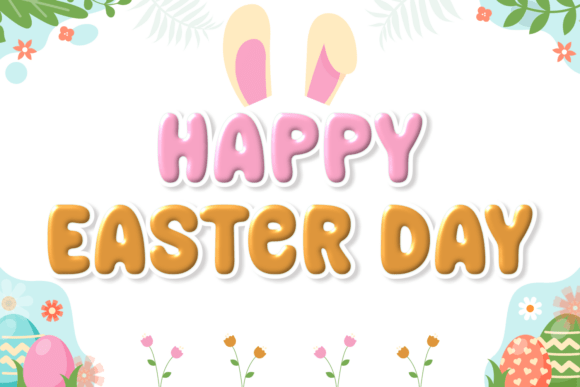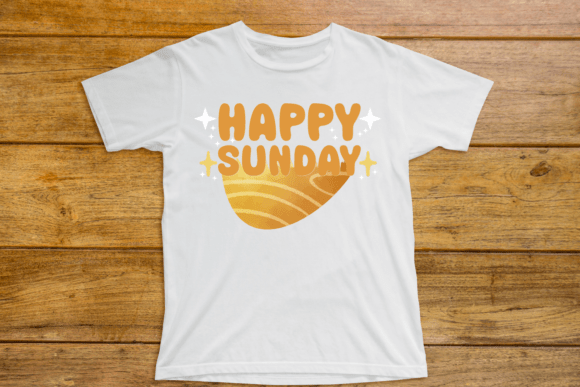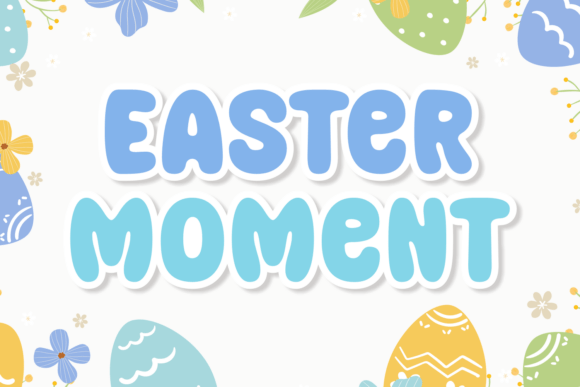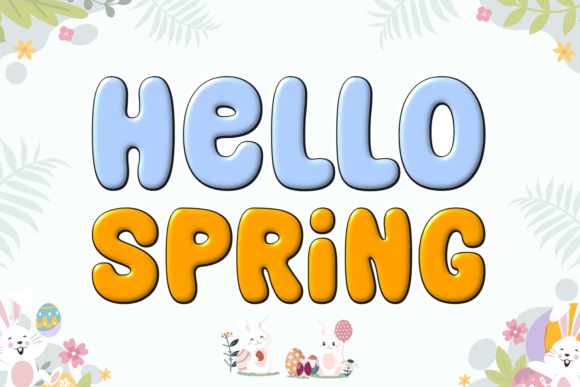
Easter Angel Font: A Whimsical and Versatile Display Font for Your Creative Projects
Are you looking for a font that can add a touch of whimsy and warmth to your creative projects? Look no further than the Easter Angel font! This charming display font is perfect for igniting the spirit of Easter with its bunny-inspired uniqueness and diverse layouts. With its smooth structures and clean aesthetic, the Easter Angel font is a fabulous choice for a wide range of design projects.
What Makes Easter Angel Font So Special?
The Easter Angel font is a standout in the world of typography, thanks to its unique blend of whimsy and sophistication. Its smooth structures and clean lines make it perfect for designs that require a touch of elegance, while its bunny-inspired uniqueness adds a playful touch that’s perfect for Easter-themed projects. Whether you’re designing for Easter or just looking for a font that can add a touch of warmth and personality to your work, the Easter Angel font is an excellent choice.
One of the things that makes the Easter Angel font so versatile is its wide range of applications. This font is perfect for:
- Branding and product packaging designs: The Easter Angel font’s clean and sophisticated aesthetic makes it a great choice for branding and product packaging designs. Its smooth lines and curves add a touch of elegance to any design, making it perfect for high-end products or luxury brands.
- Book covers and magazine typography: The Easter Angel font is also perfect for book covers and magazine typography. Its unique blend of whimsy and sophistication makes it a great choice for designs that require a touch of personality and flair.
- Invitations and greeting cards: The Easter Angel font’s playful and whimsical nature makes it perfect for invitations and greeting cards. Whether you’re designing for Easter or just looking for a font that can add a touch of warmth and personality to your designs, this font is an excellent choice.
- Poster designs and logotype creations: The Easter Angel font is also great for poster designs and logotype creations. Its bold and eye-catching aesthetic makes it perfect for designs that require a touch of drama and flair.
- Apparel labeling and t-shirt designs: Finally, the Easter Angel font is also perfect for apparel labeling and t-shirt designs. Its playful and whimsical nature makes it a great choice for designs that require a touch of personality and flair.
Easter Angel Font: A Font for Eastern European Accents
One of the things that sets the Easter Angel font apart is its support for Eastern European accents. This makes it a great choice for designers who need to create designs that require a touch of international flair. Whether you’re designing for a specific cultural or linguistic group, the Easter Angel font is an excellent choice.
Why Choose the Easter Angel Font?
So why choose the Easter Angel font for your next design project? Here are just a few reasons:
- Unique and playful aesthetic: The Easter Angel font has a unique and playful aesthetic that’s perfect for designs that require a touch of whimsy and personality.
- Versatile and adaptable: The Easter Angel font is incredibly versatile and adaptable, making it perfect for a wide range of design projects.
- Clean and sophisticated: Despite its playful nature, the Easter Angel font is also clean and sophisticated, making it perfect for designs that require a touch of elegance.
- Support for Eastern European accents: Finally, the Easter Angel font supports Eastern European accents, making it a great choice for designers who need to create designs that require a touch of international flair.
| Font Name | Easter Angel Font |
| Author | Hendrik (7NTypes) |
In conclusion, the Easter Angel font is a charming display font that’s perfect for designers and crafters who need a touch of whimsy and warmth in their creative projects. With its unique blend of playfulness and sophistication, this font is perfect for a wide range of design projects, from branding and product packaging designs to book covers and magazine typography. Whether you’re designing for Easter or just looking for a font that can add a touch of personality to your work, the Easter Angel font is an excellent choice.